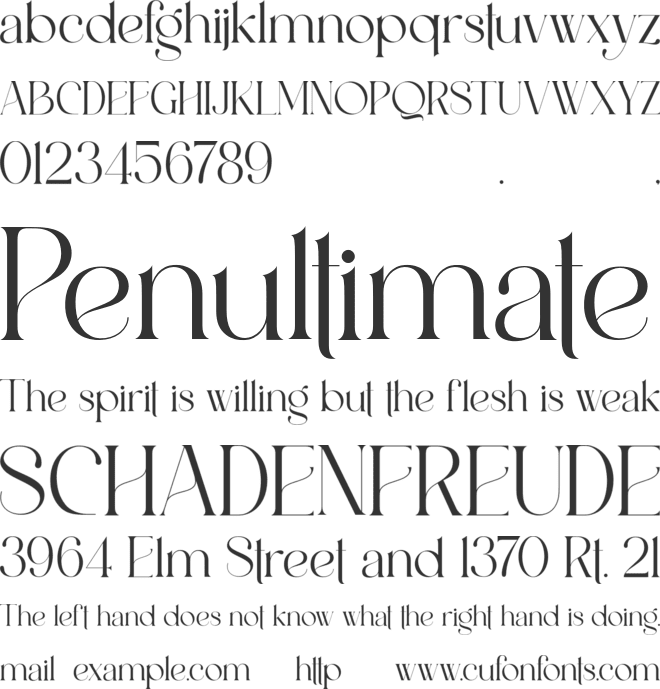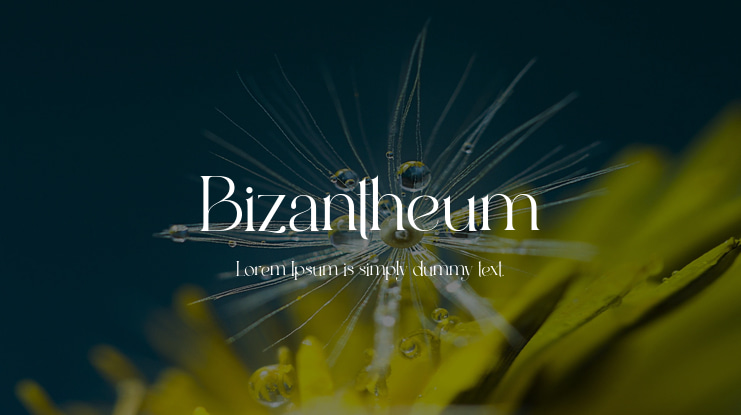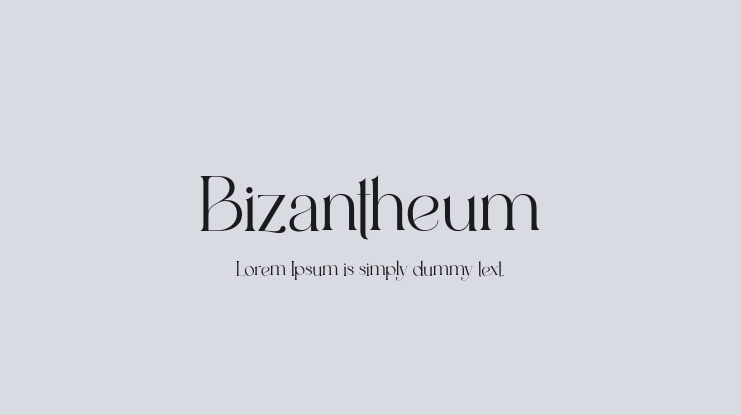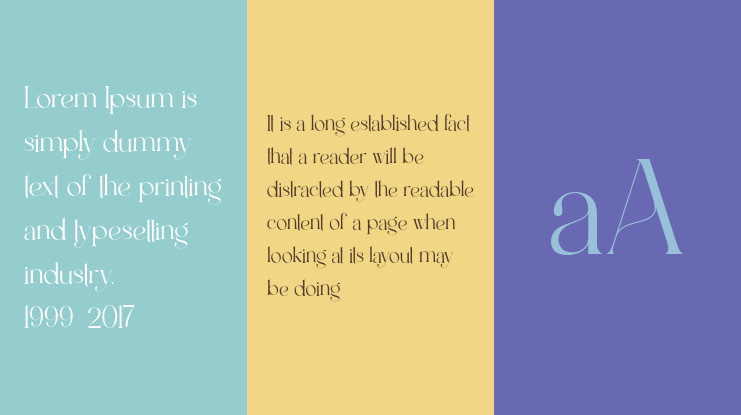
Bizantheum Font
A Font by Aluyeah Studio
Bizantheum, remarkable new modern display font. Inspired by the majesty and mystique of the Byzantine era buildings. Coming with 130+ stunning and super easy to use alternates.